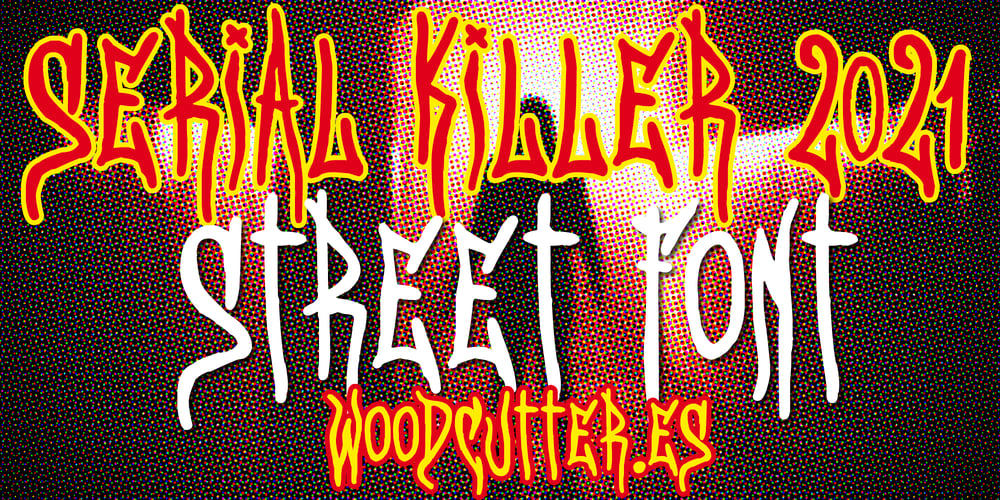
Serial Killer 2021 Font Family was designed by Jordi Manero and published by Woodcutter. Serial Killer 2021 contains 1 styles and family package options. “Serial Killer 2021” is an uppercase font with a gothic style, hand-drawn with a vertical and terrifying aesthetic. The letters feature a wavy design that gives it an eerie and unsettling touch, perfect for projects aiming to convey horror and suspense. Its irregular and handcrafted stroke makes each letter appear unique, as if sketched in the midst of a horror scene. This font is ideal for horror movie titles, Halloween posters, or any work that requires a dark and sinister atmosphere.